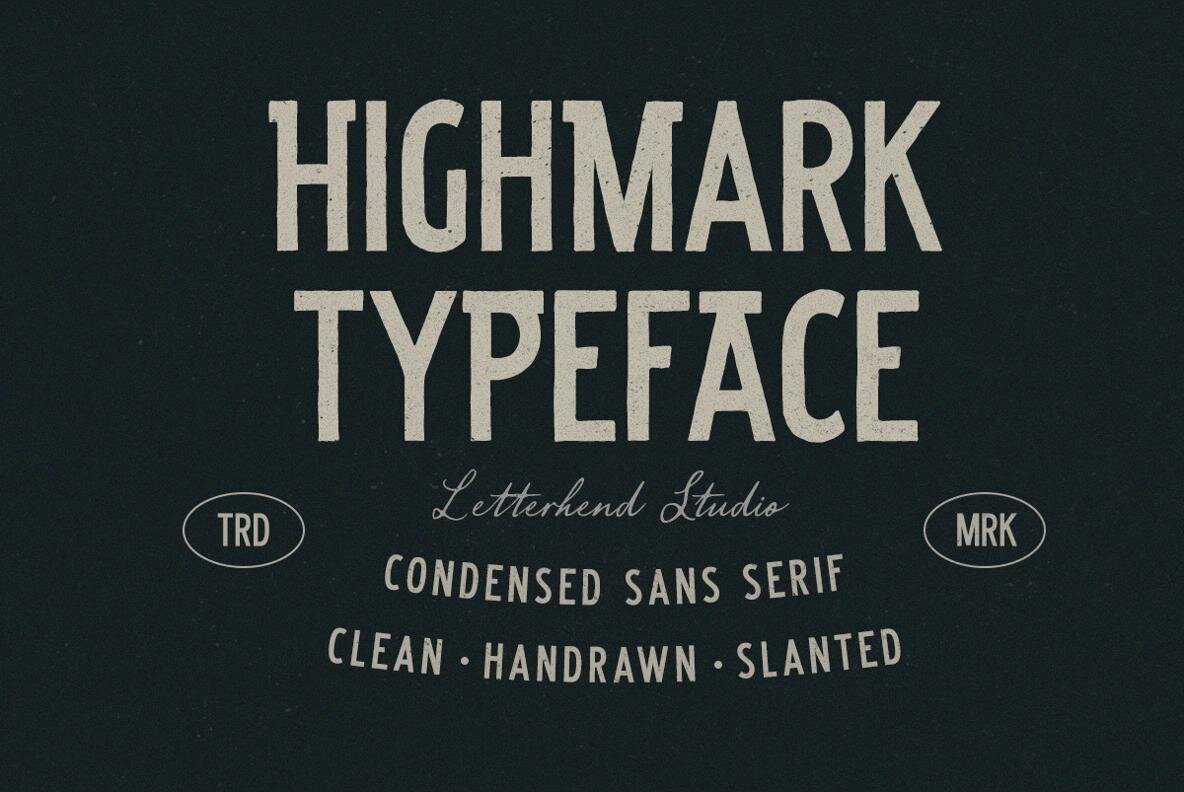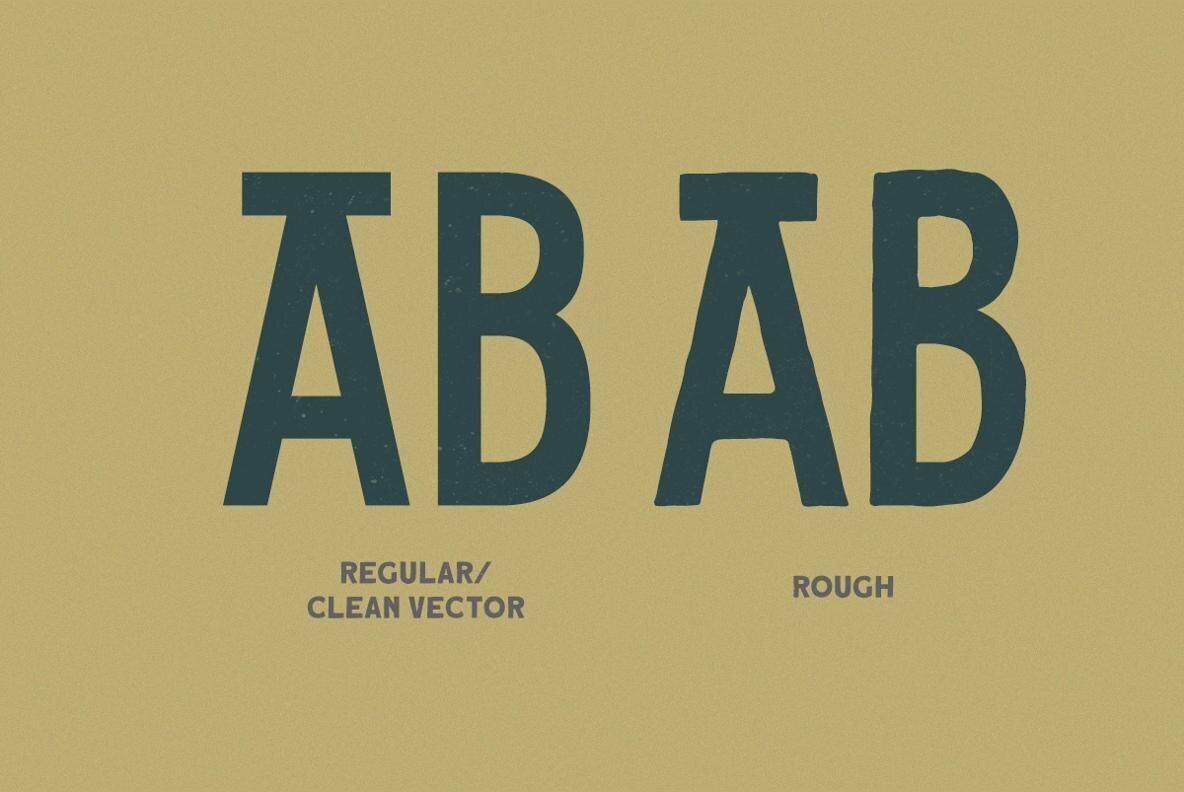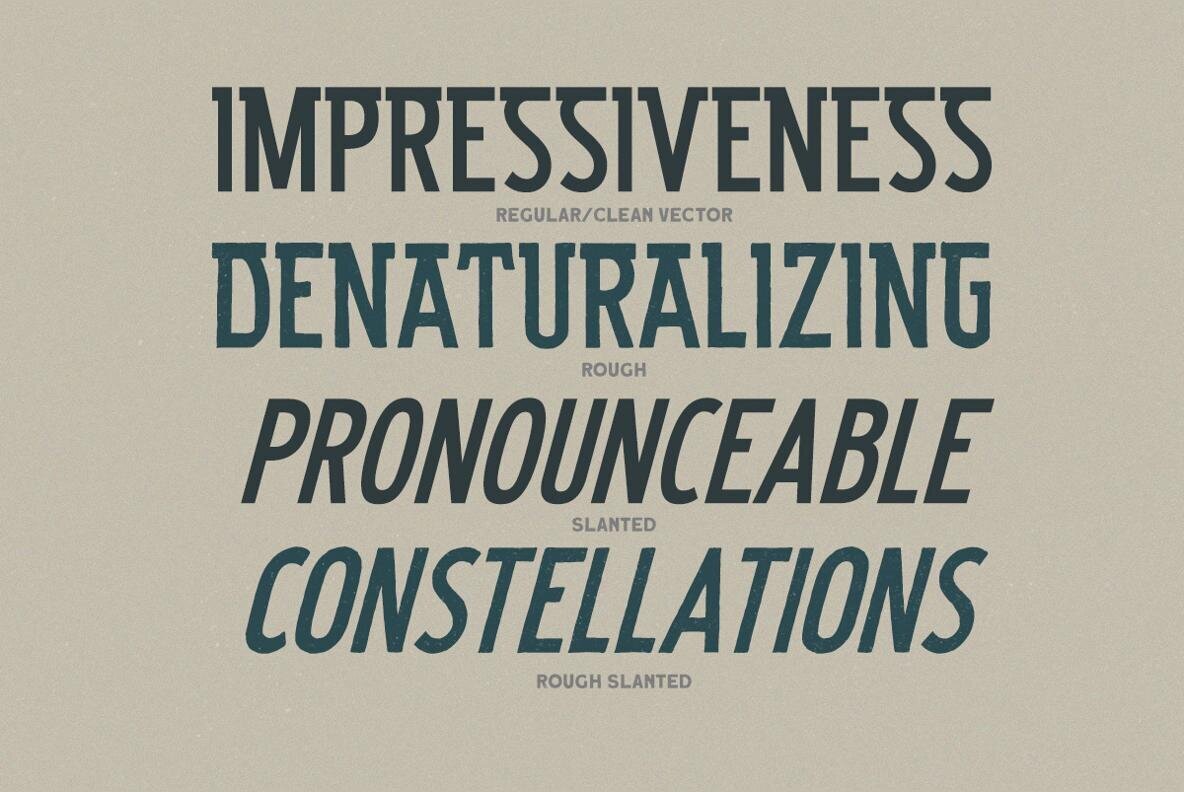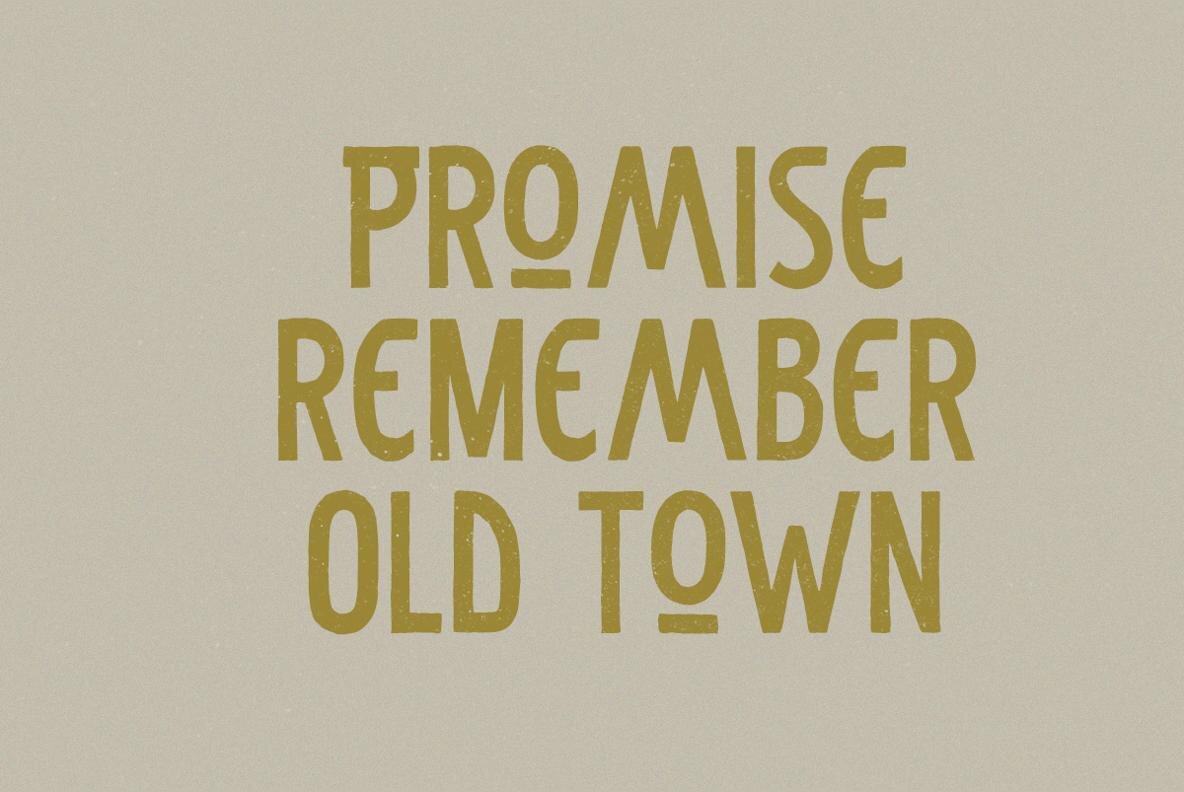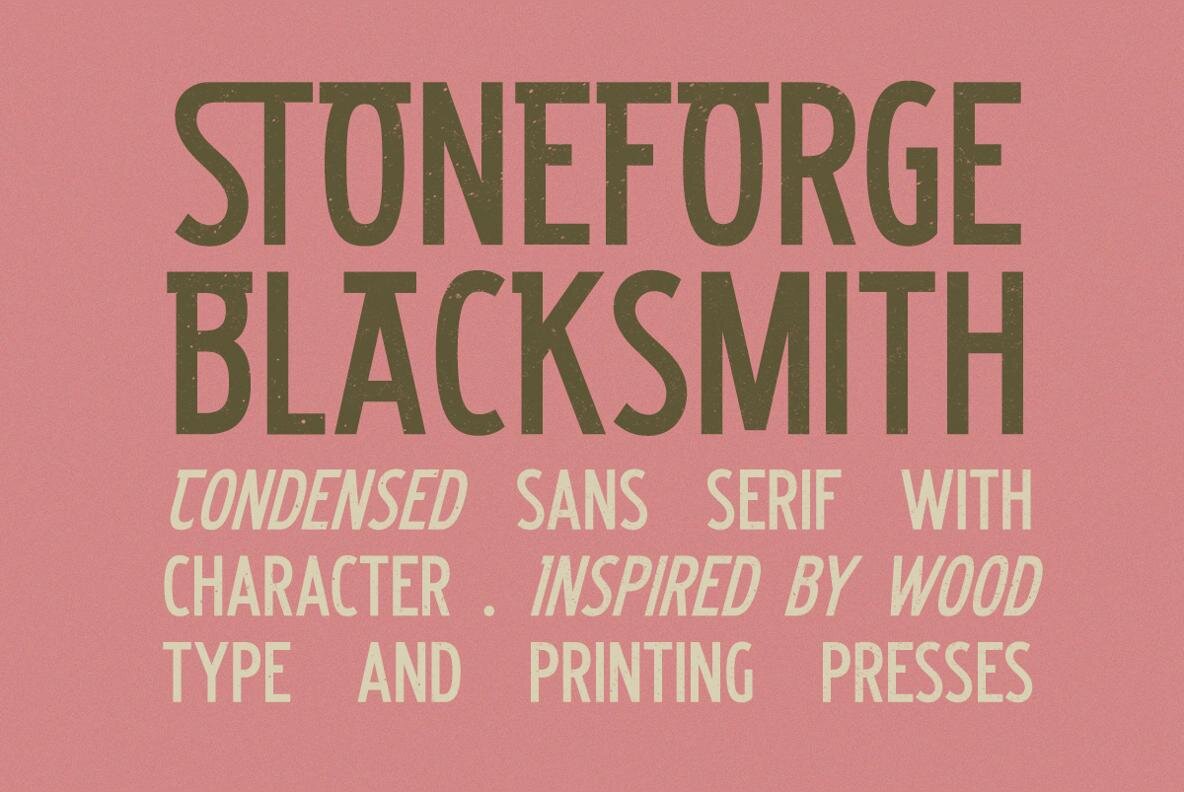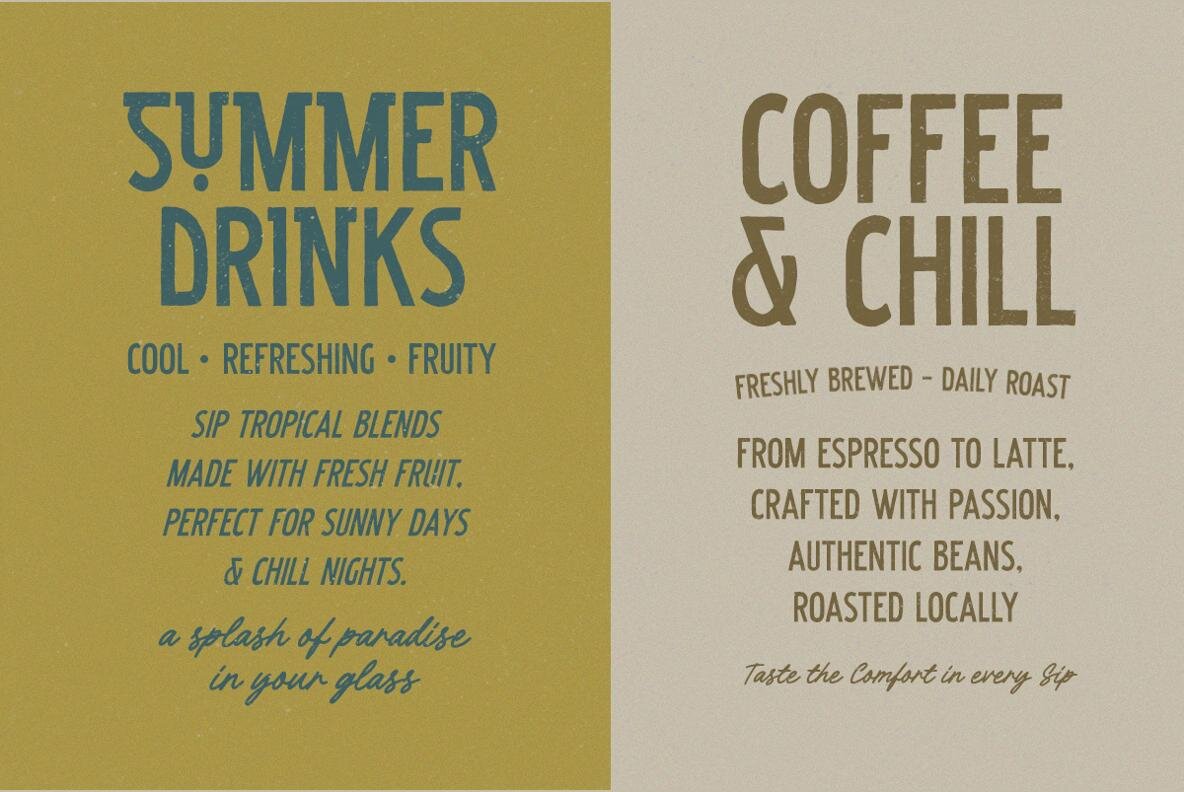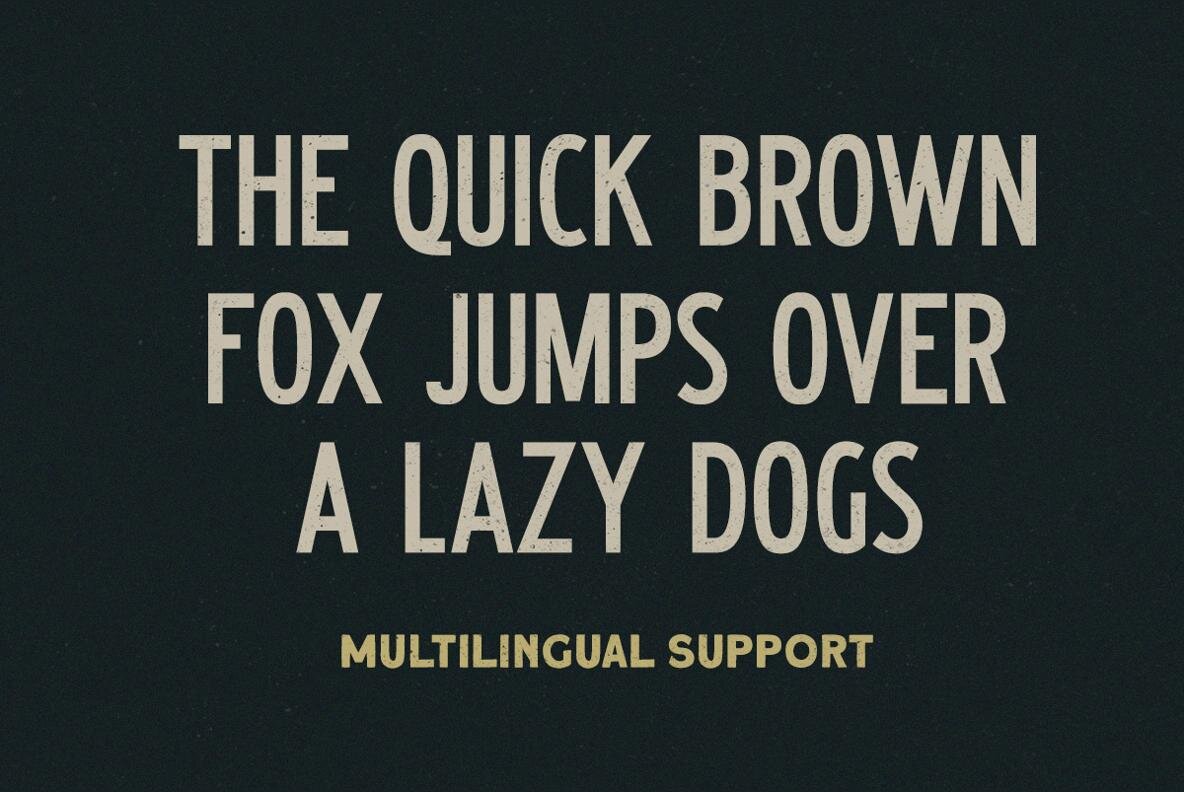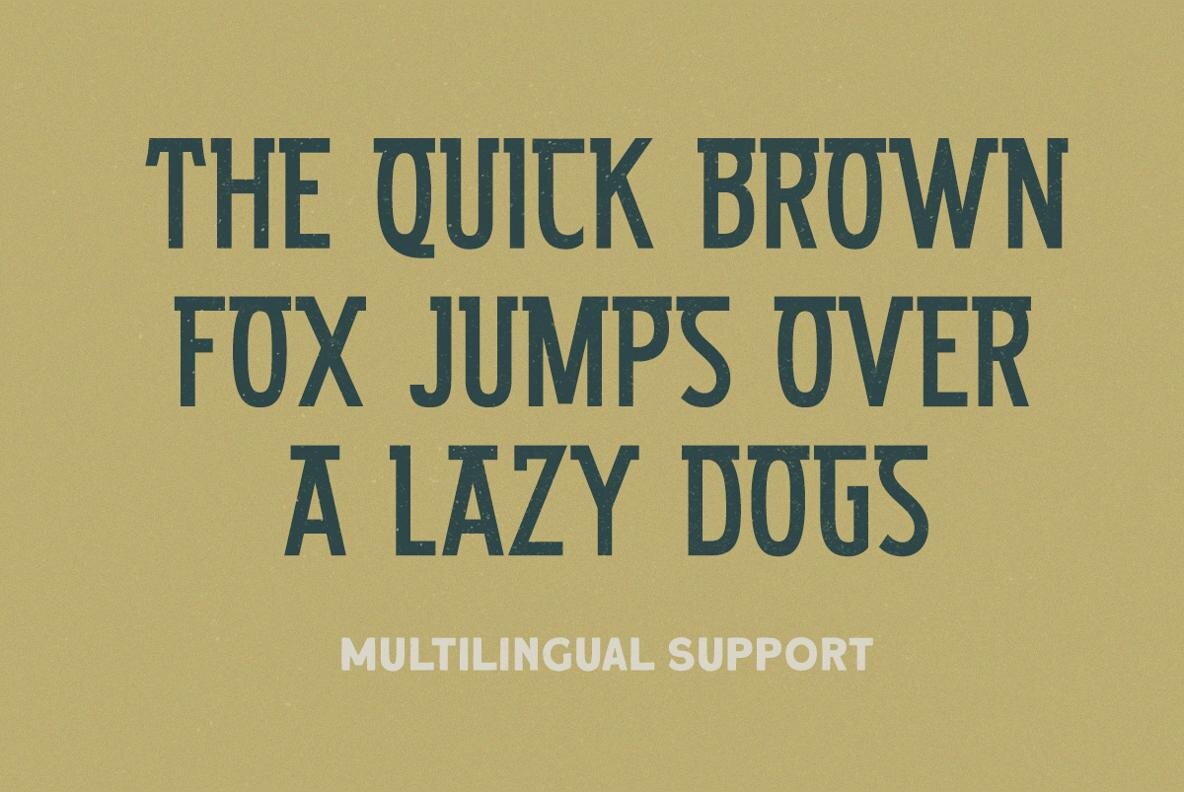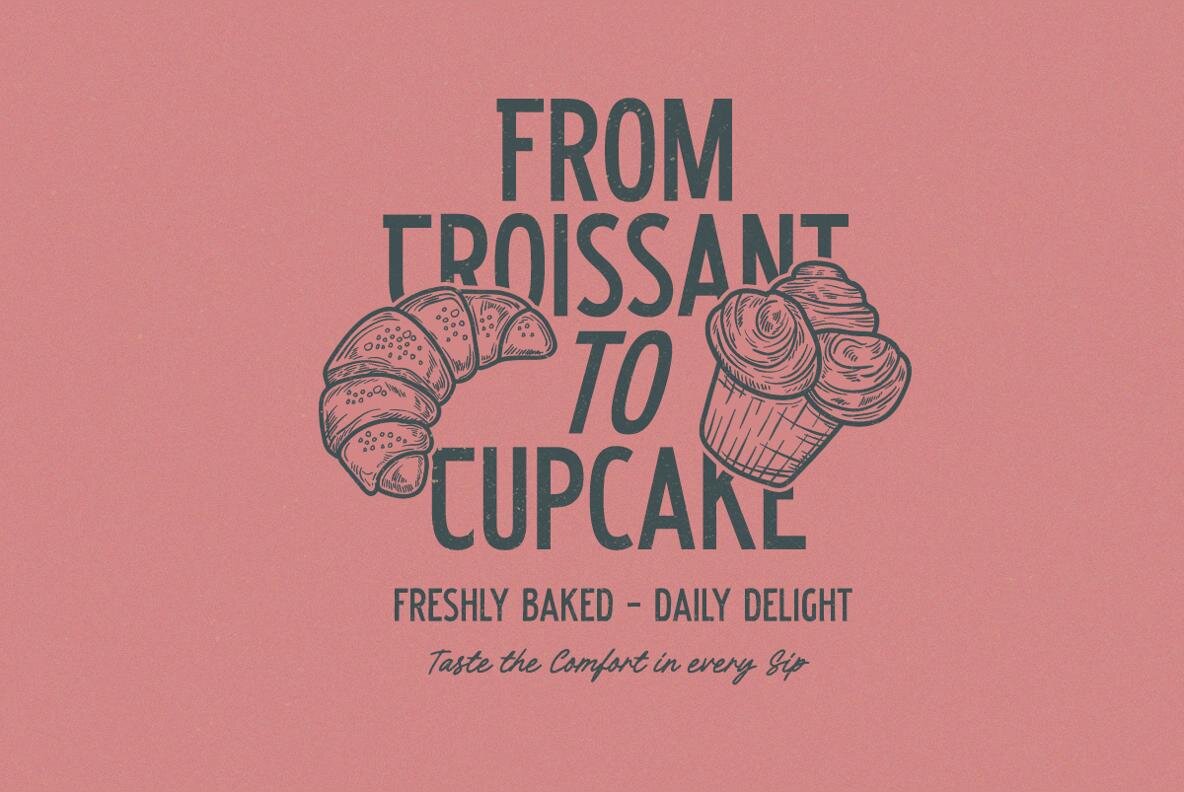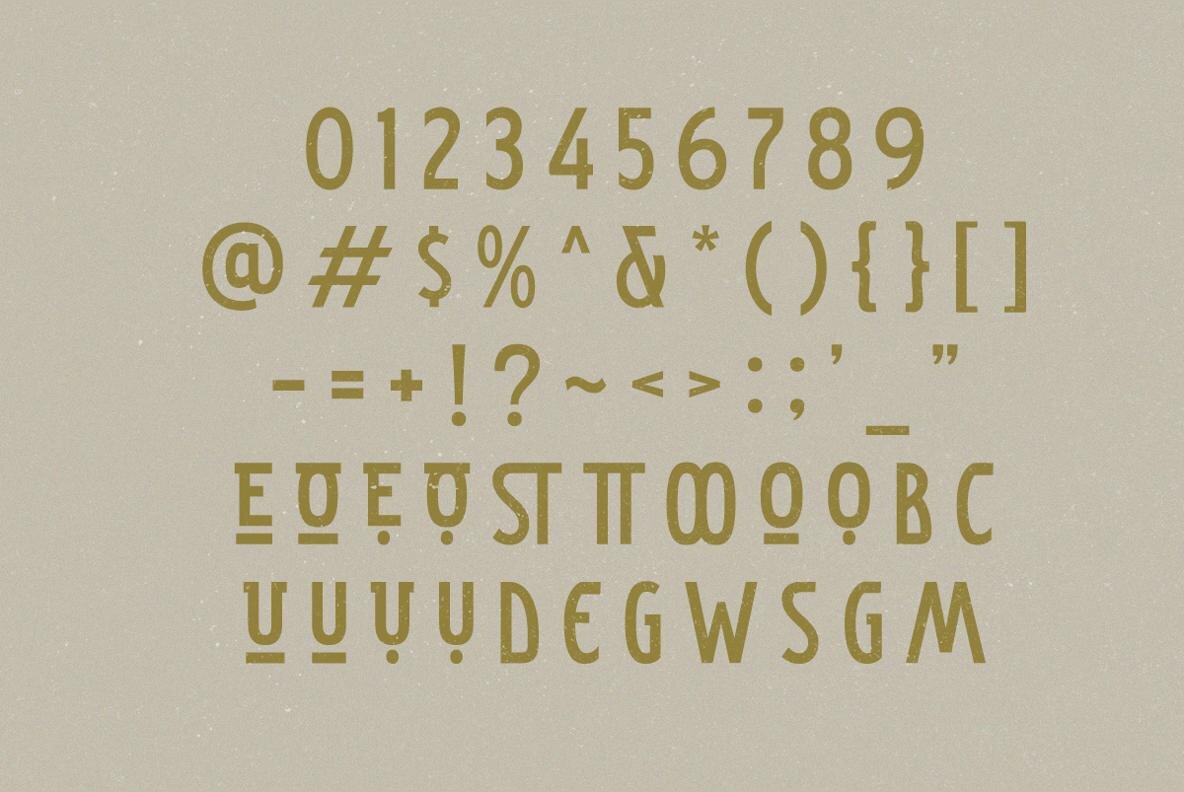
Highmark Font
Highmark offers a clean, condensed sans serif design that balances vintage appeal with modern functionality. Its tall, narrow letterforms and distinctive hand-drawn texture create a striking presence, making it ideal for logos, packaging, posters, and attention-grabbing headlines. Both regular and slanted styles allow for versatile typographic expression, matching a range of creative needs. This typeface introduces a genuine handcrafted quality to any project, blending classic influences with a fresh approach. Its authentic look and strong personality are well-suited for designers seeking timeless yet contemporary results.Highmark Typeface – Vintage-Inspired Condensed Sans Serif